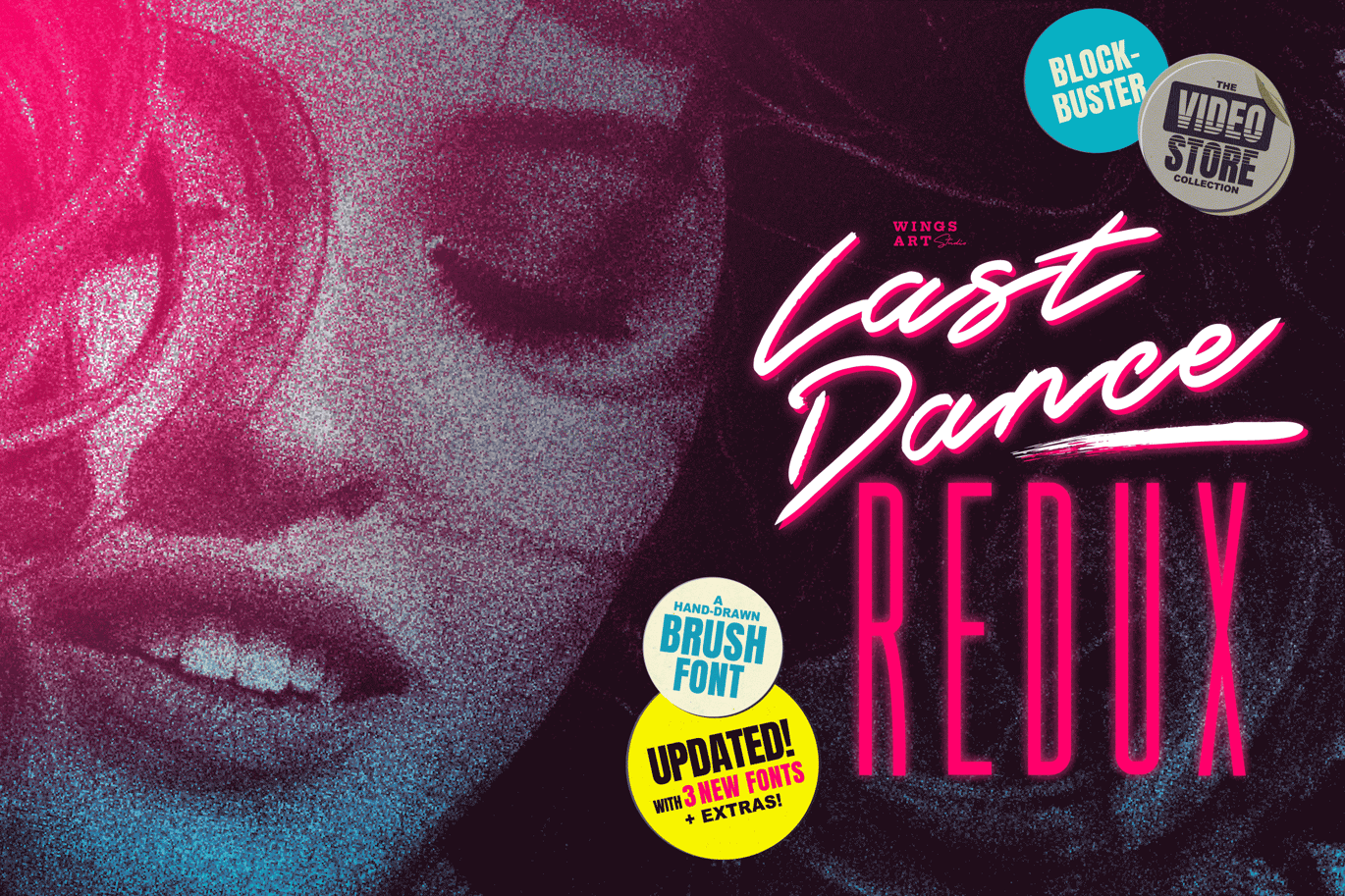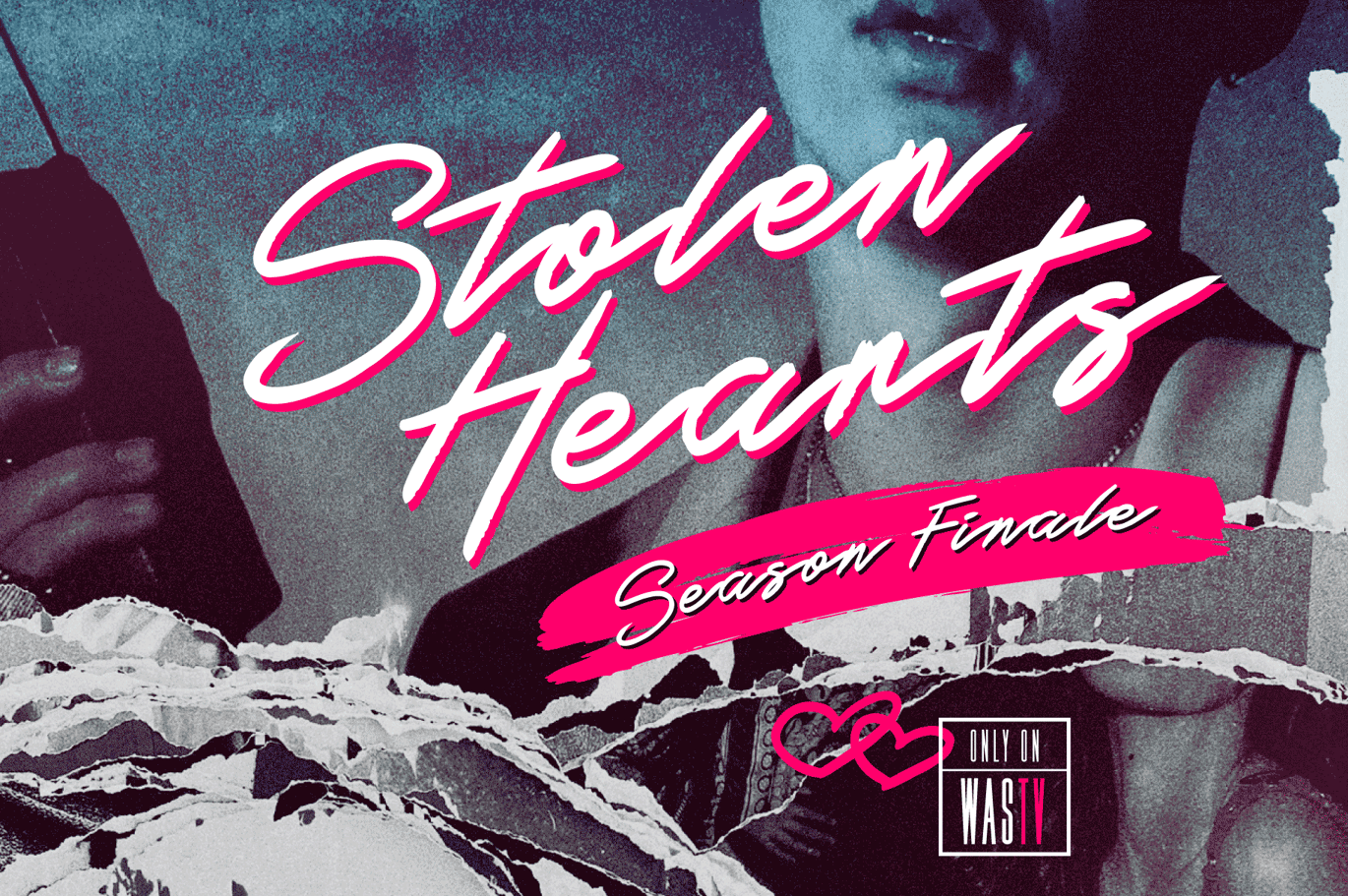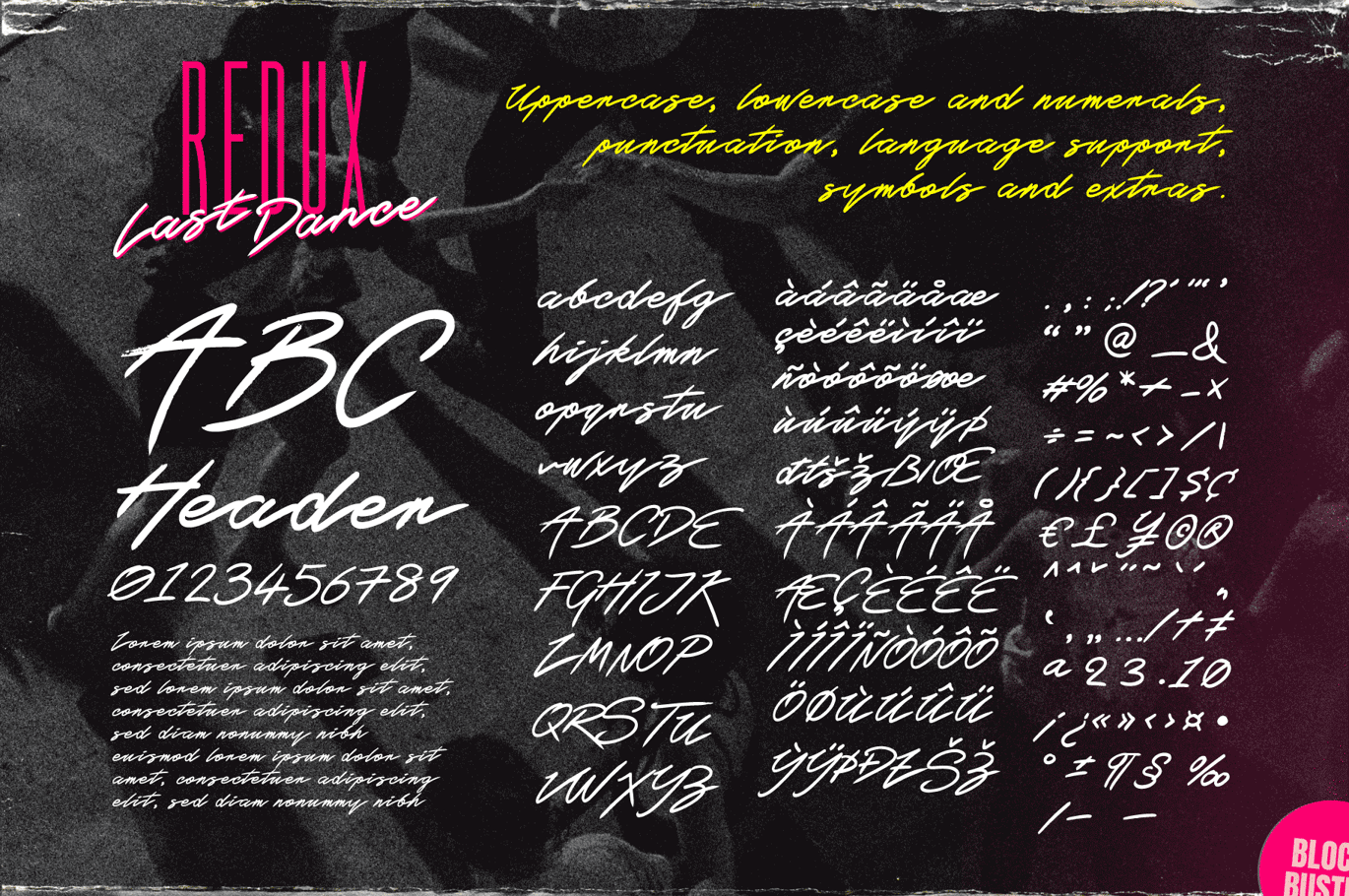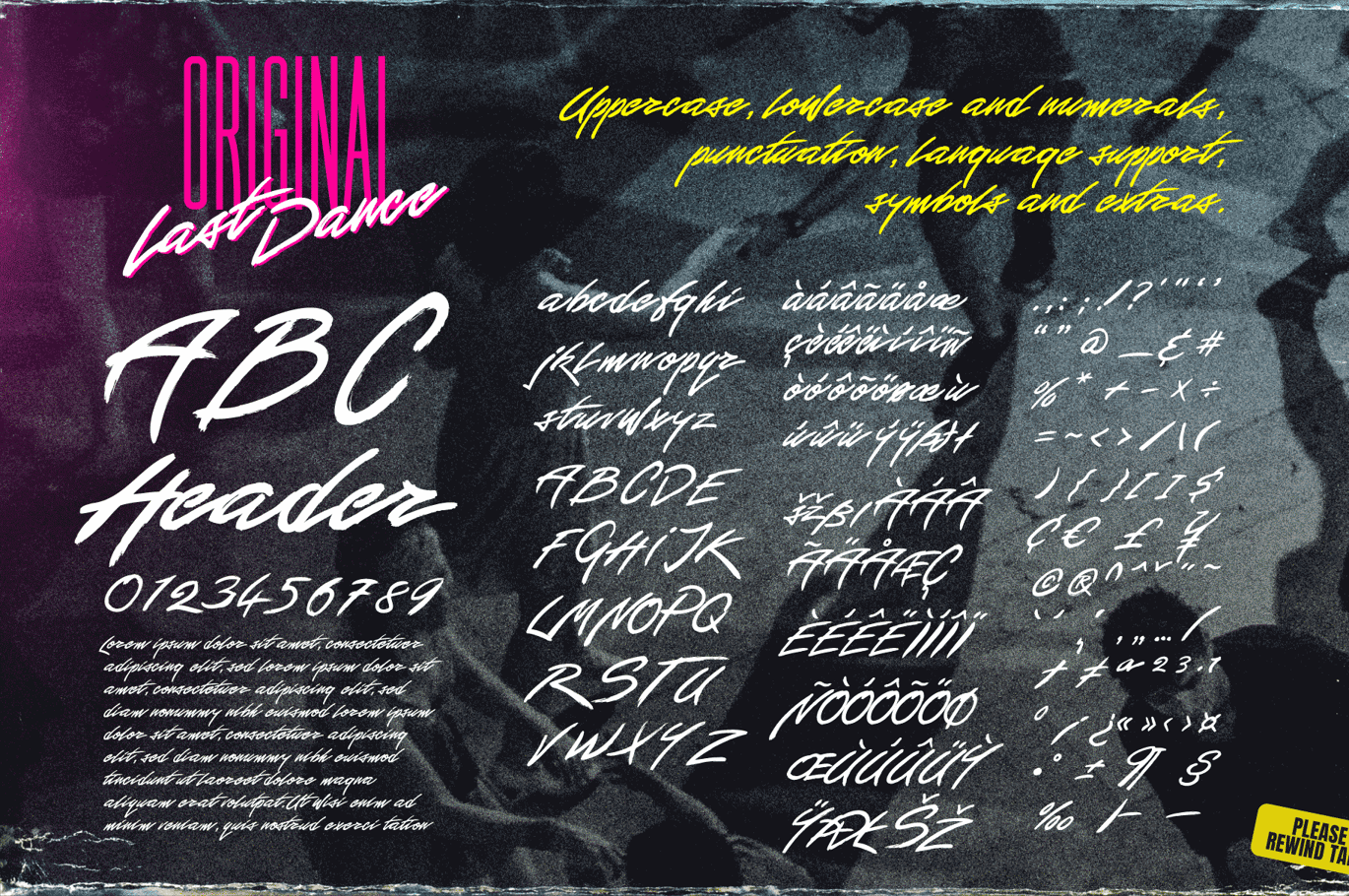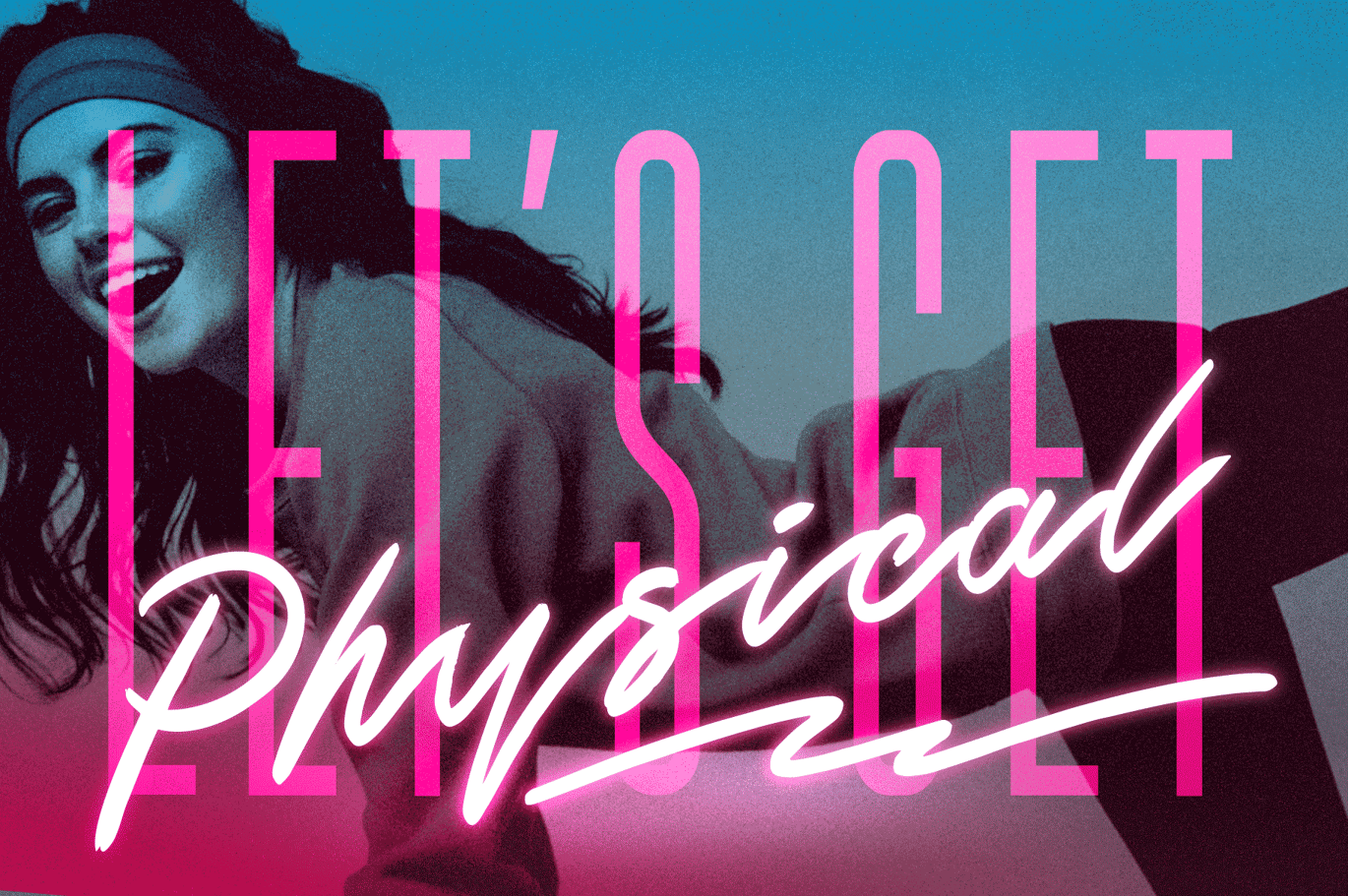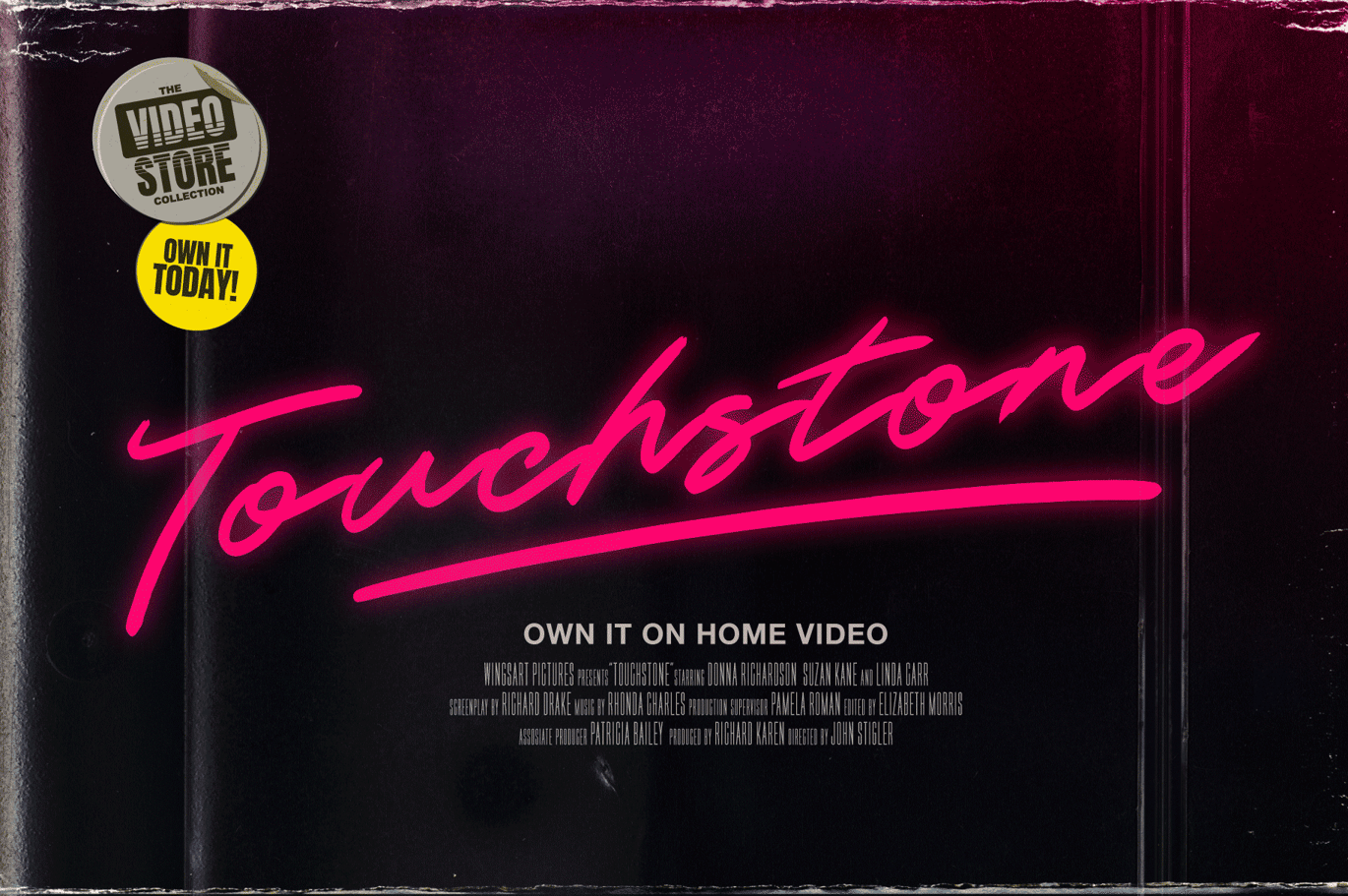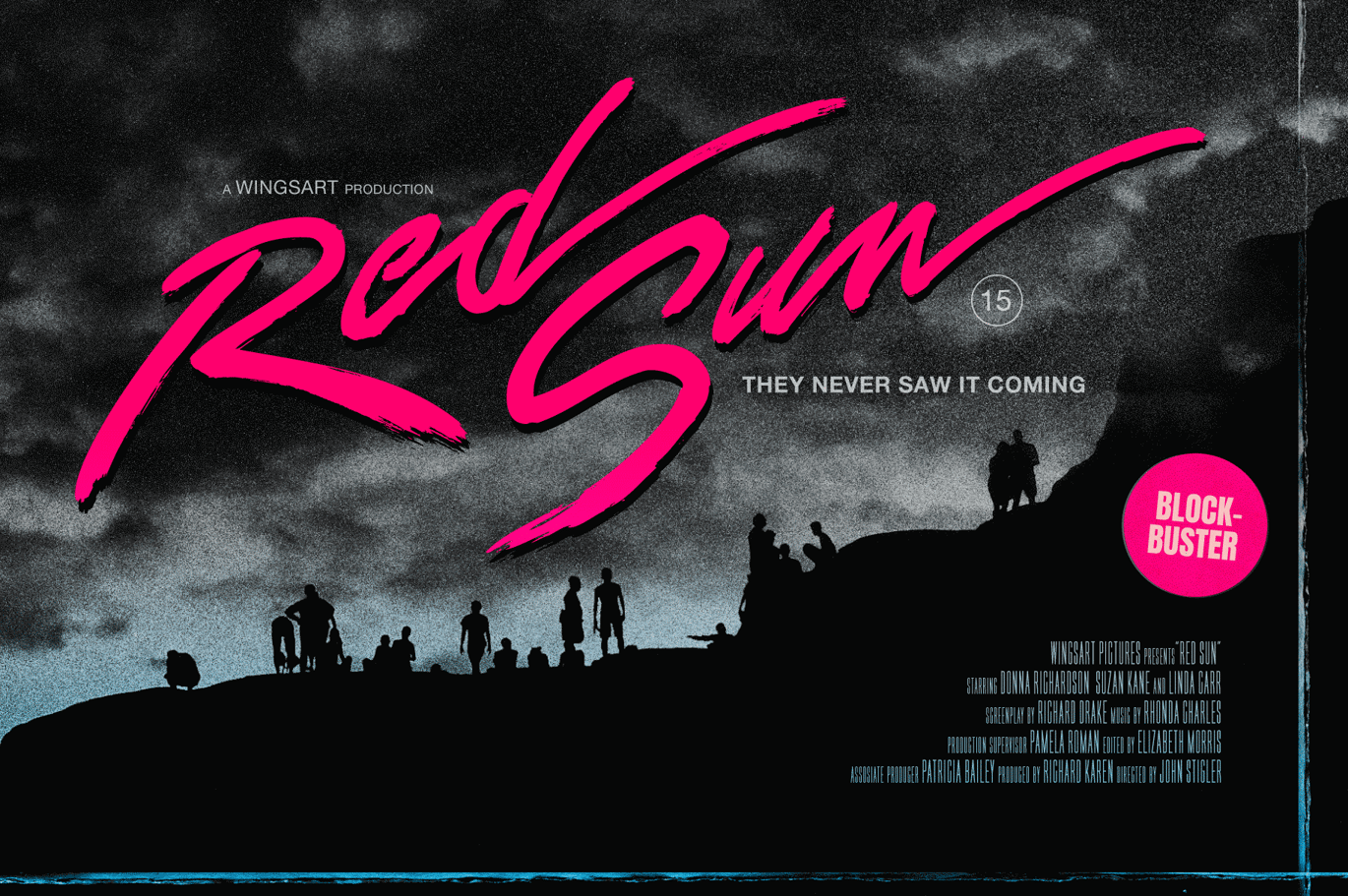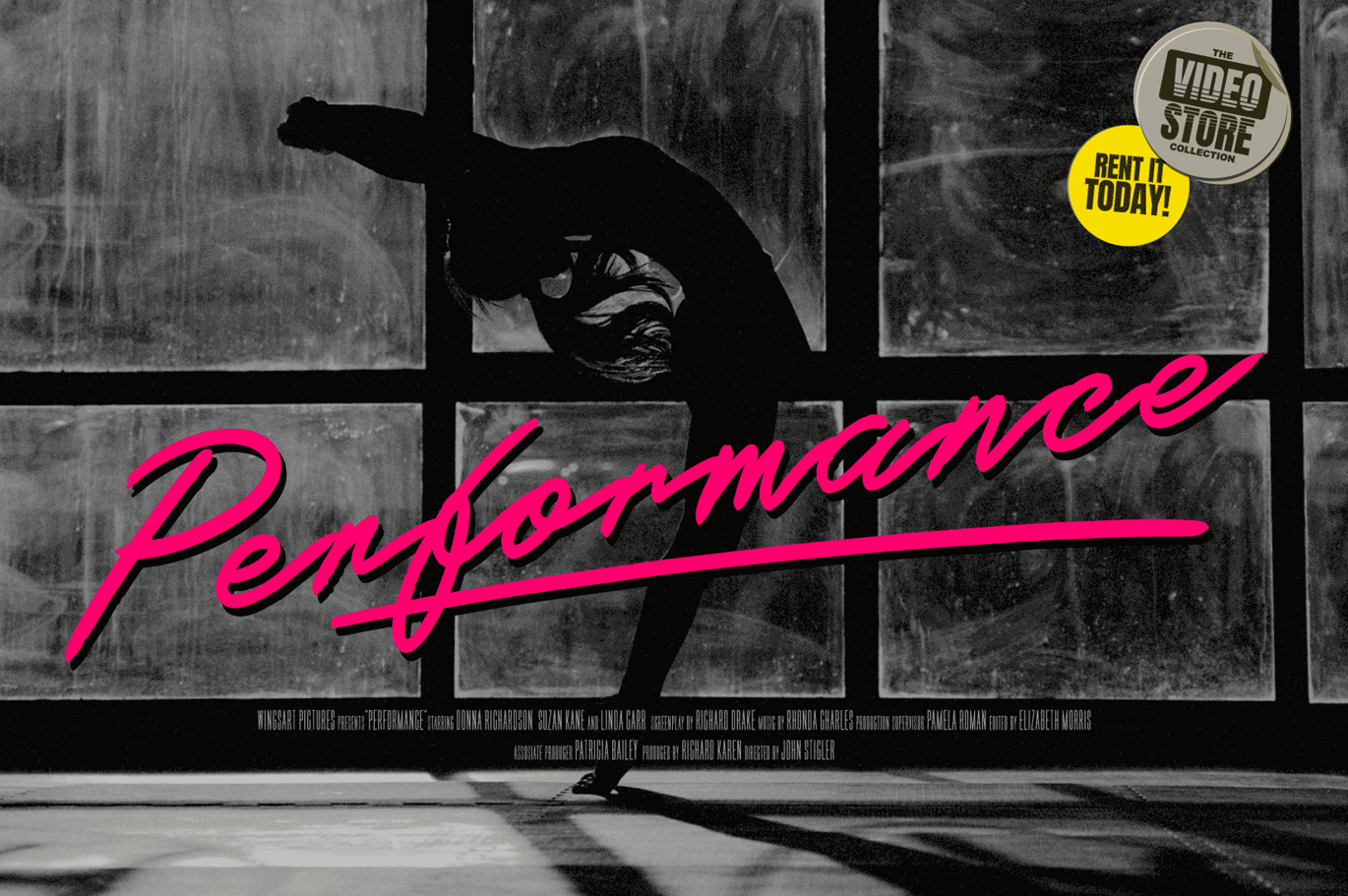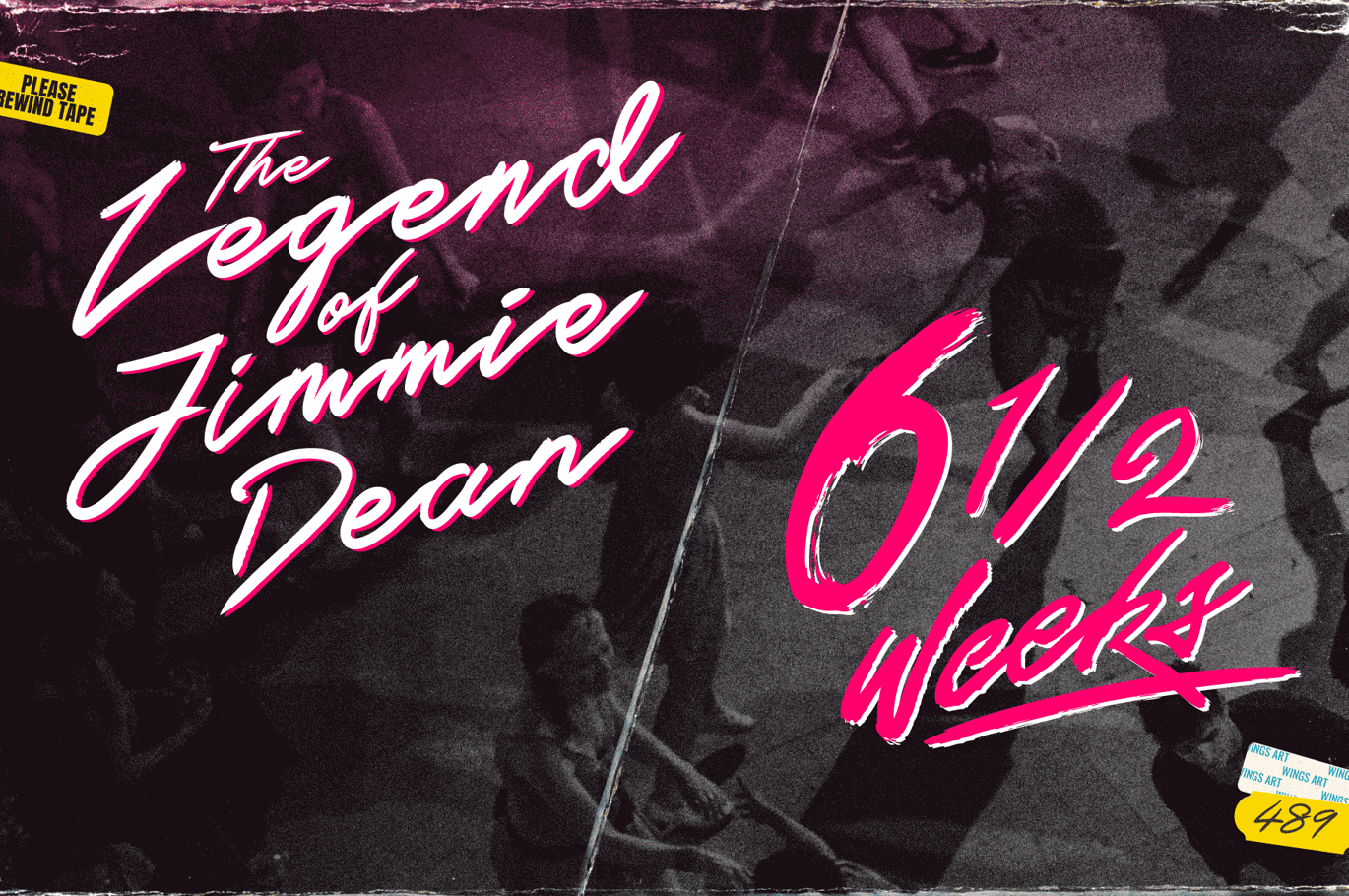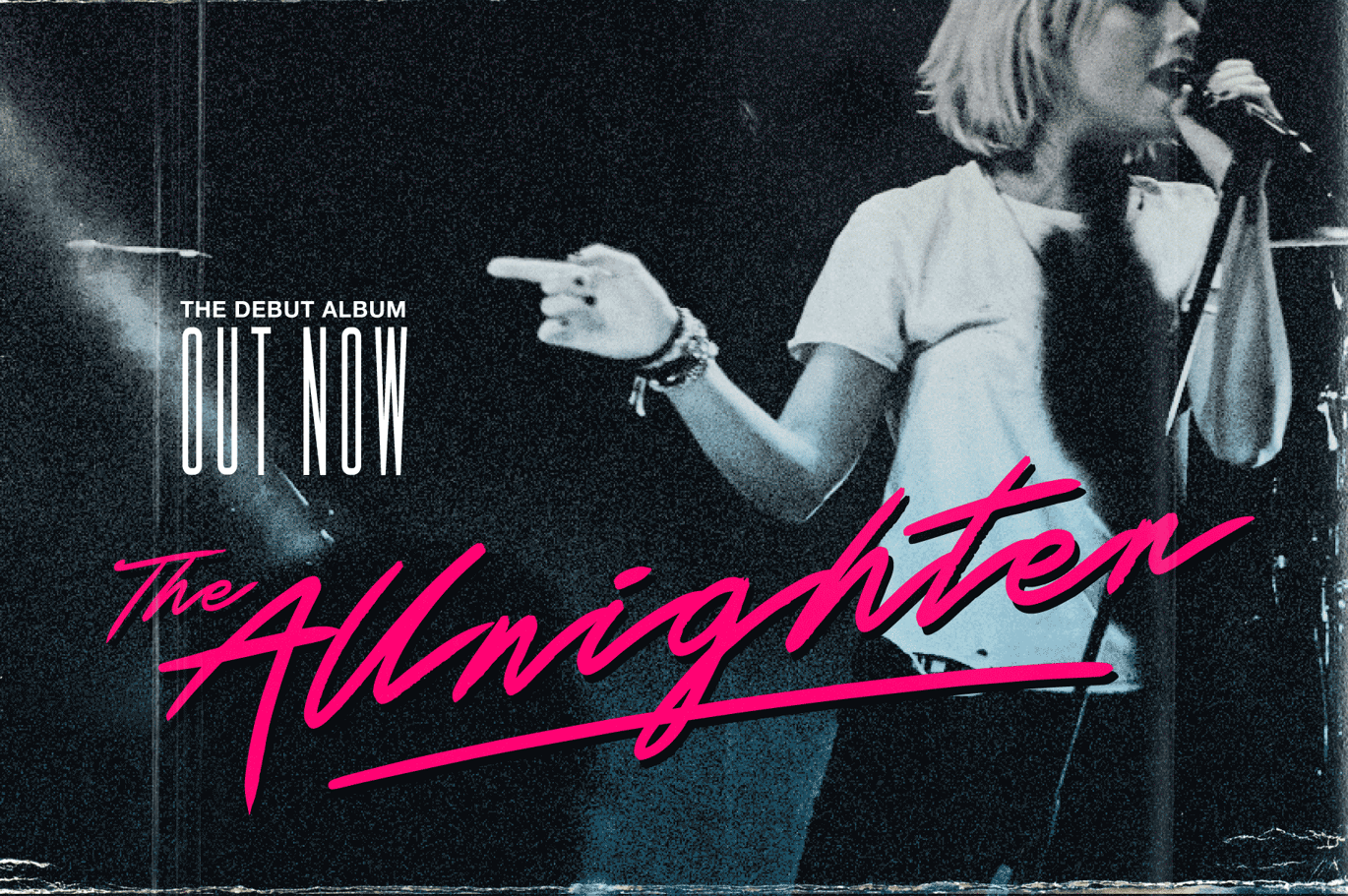
Last Dance – Retro 80s Movie Inspired Script Font
Last Dance: Redux – The Best-Selling 80s Inspired Script Font – Updated!
Welcome to Last Dance: Redux, a new and improved version of my popular brush-script font inspired by 80s movie posters, VHS covers and Friday nights at the video store!
This hand-drawn script aims to capture the feel-good vibes of movie blockbusters that won our teenage imaginations, while serving as the go-to font for recreating this unique and nostalgic period. The original Last Dance font features a gritty, hand-drawn texture that looks equally at home on an aerobics competition poster or steamy urban thriller – making great titles that look distinctly cinematic.
Last Dance: Redux takes that original design and strips it back to it’s bare essentials resulting in a clean, uniform look that improves letter flow and readability. It’s also much lighter on system resources making it the preferred choice when using extensively across print and web projects.
Both versions come with upper and lowercase characters along with punctuation, numerals and language support, plus two full sets of alternatives and a selection of underlines. Check out the visuals to see them in action!
Last Dance Redux:
- Alternative 01
- Alternative 02
- Underlines*
Last Dance Original:
- Alternative 01
- Alternative 02
- Underlines**